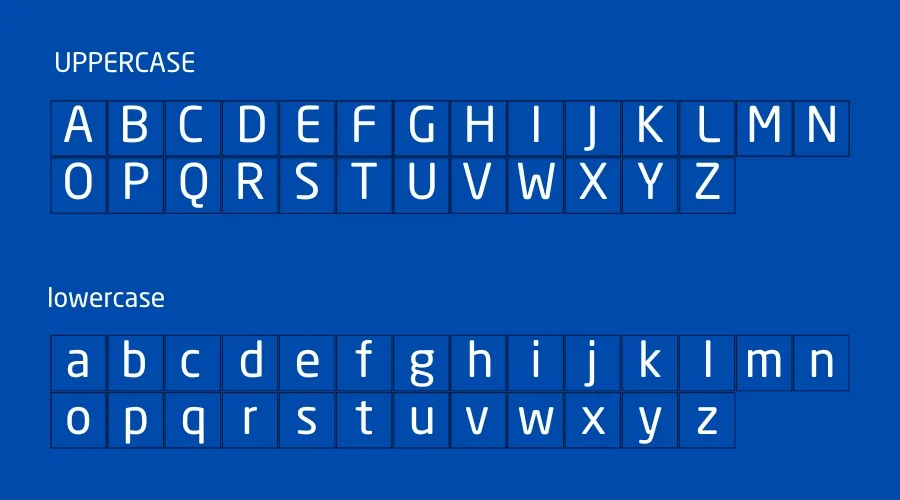
About Neo Sans Font
Designed with precision, Neo Sans Font merges rounded corners with color consistency in every character. This versatility makes it particularly effective for medical texts, where flexibility and consumer connection directly impact communication quality. Each letterform demonstrates meticulous craftsmanship.
Technical excellence shines through elements like alternates and historical accuracy, enhancing typographic versatility. In packaging settings, Neo Sans Font proves its worth through superior distance readability. The thoughtful execution of stem weight and character ensures professional results.